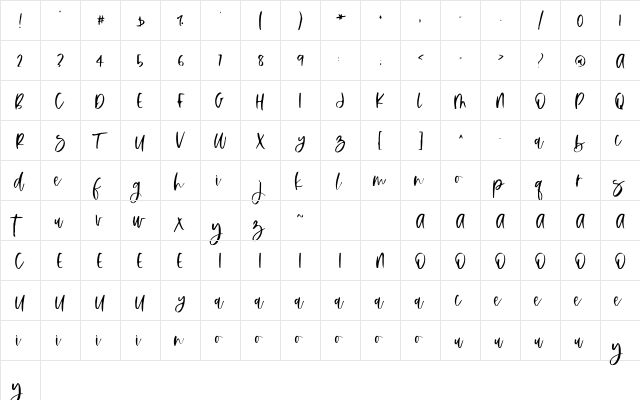
Sakarepmu Regular
| Foundry | Muhammad Samsul Arifin |
| Designer | Muhammad Samsul Arifin |
Design Context for Sakarepmu Typeface
Sakarepmu is a composed and adaptable typeface that performs quietly and consistently across a wide range of design contexts.